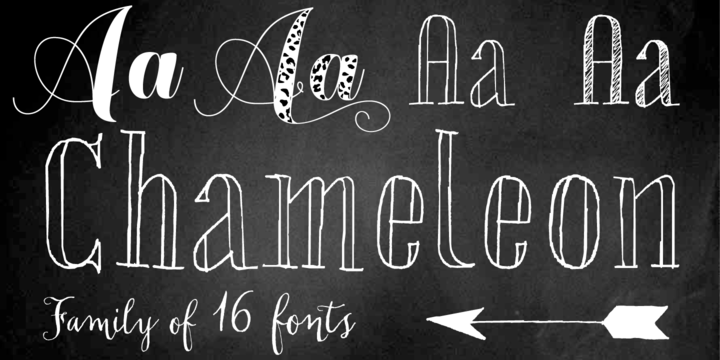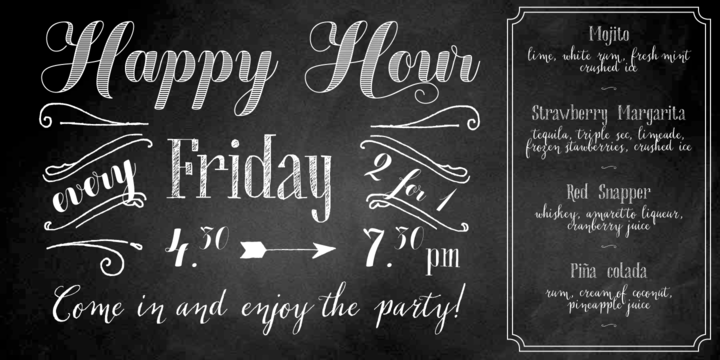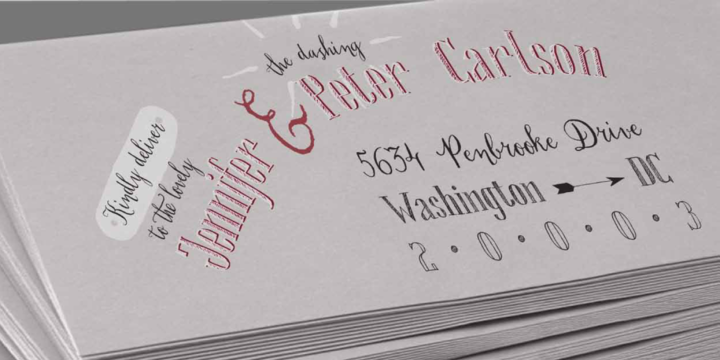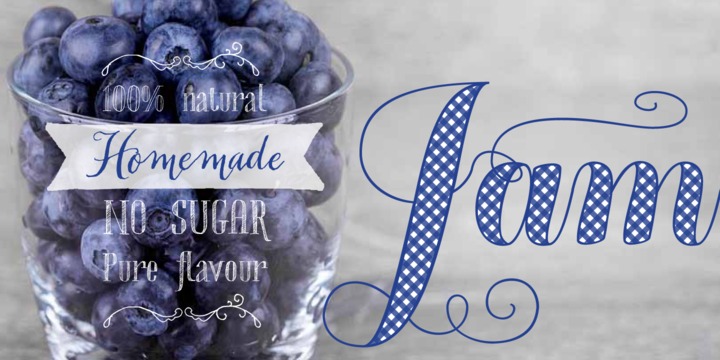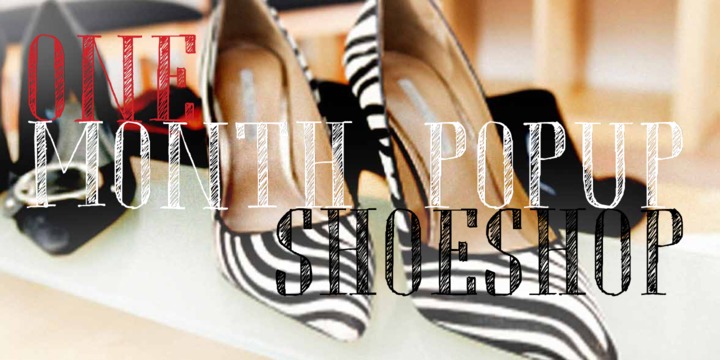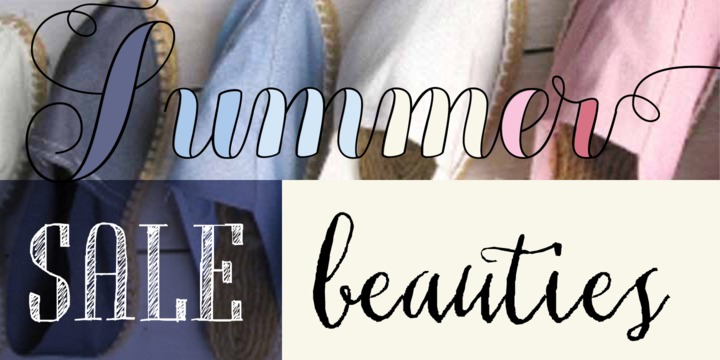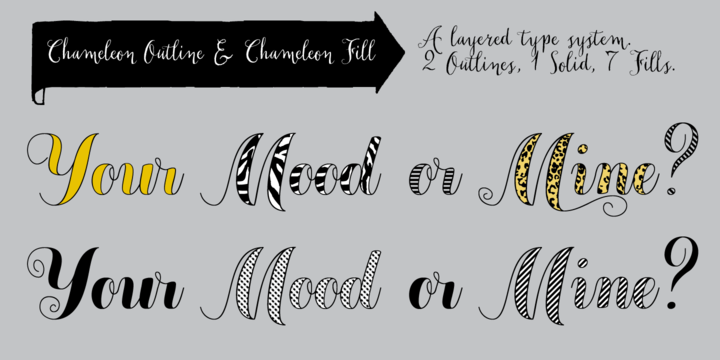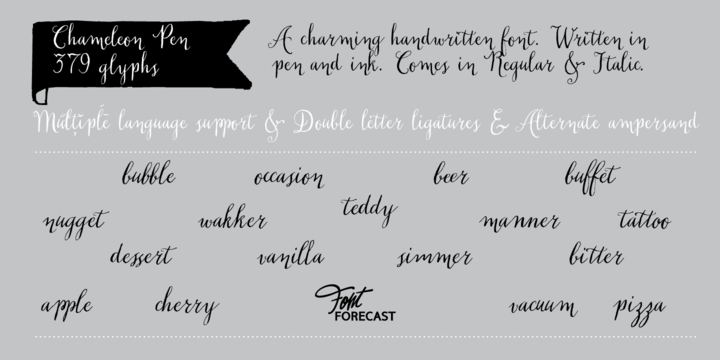
Chameleon Font
Chameleon consists of 16 fonts based on 3 completely different designs. Different but specially designed to complement each other. Together they form a well-balanced design kit suitable for many different projects, e.g. invites, menus, magazines, brochures, packaging, etc.
Chameleon comes in three styles: 2 outline versions and a basic (solid) version. To combine Chameleon with Chameleon Fill, you will need an application that allows you to stack text frames. Once you start layering different fills, like a true chameleon, you can change colors and patterns. Simply place several layers on top of each other, choose from 7 fills to determine your pattern and assign a color to the fill. Always place one of the outline versions of Chameleon on the top layer.
Chameleon Basic
Chameleon Outline 1
Chameleon Outline 2
Chameleon Fill Solid
Chameleon Fill Skin 1
Chameleon Fill Skin 2
Chameleon Fill Stripe 1
Chameleon Fill Stripe 2
Chameleon Fill Stripe 3
Chameleon Fill Stripe 4
Chameleon Pen
Chameleon Pen Italic
Chameleon Sketch Basic
Chameleon Sketch Hatch
Chameleon Sketch Outline
Chameleon Sketch Extra